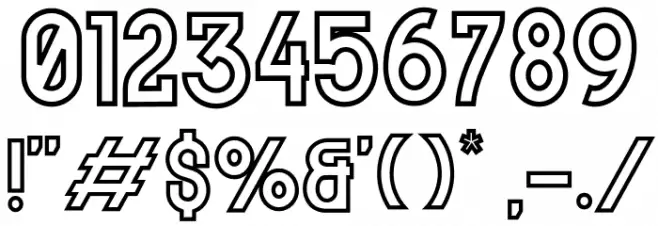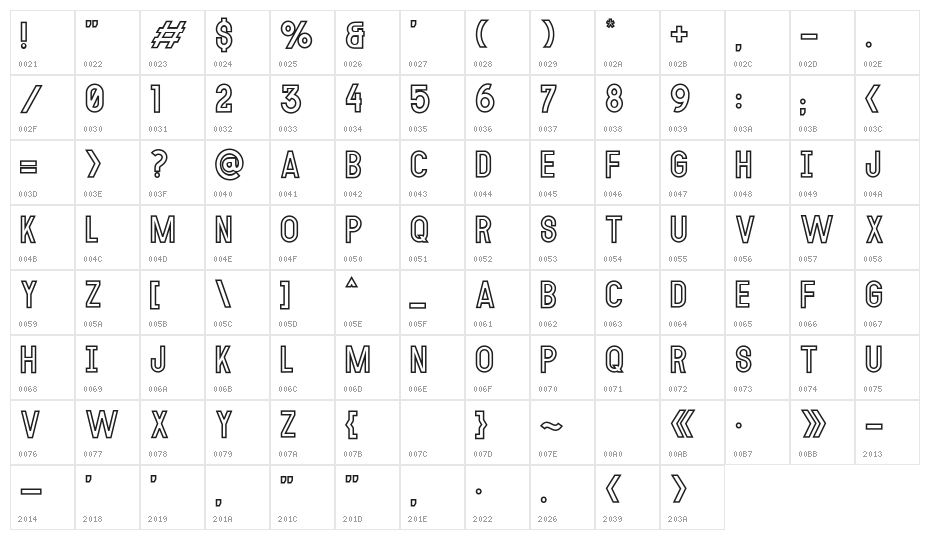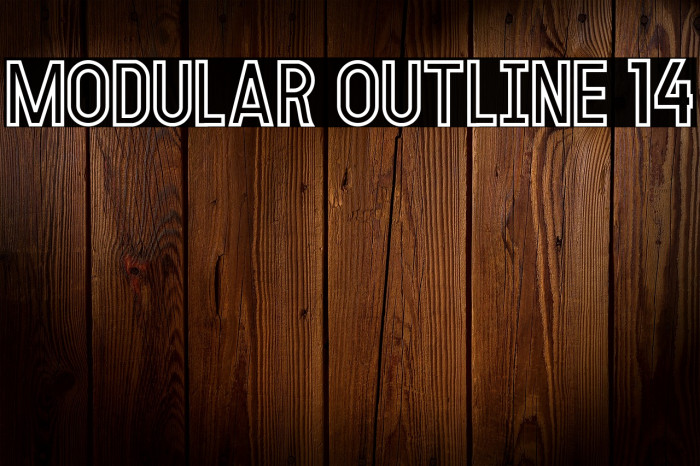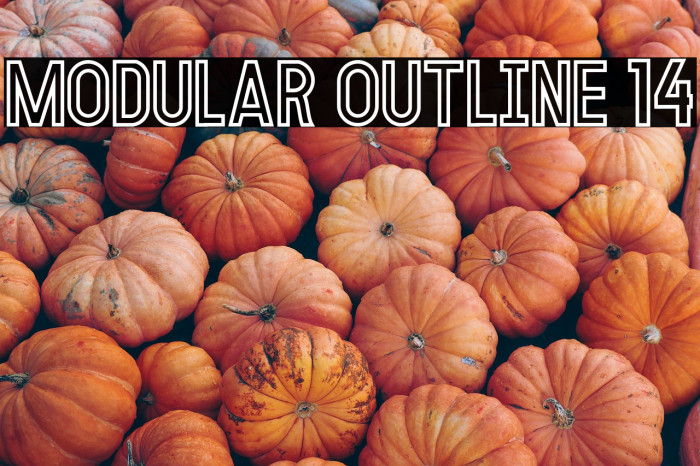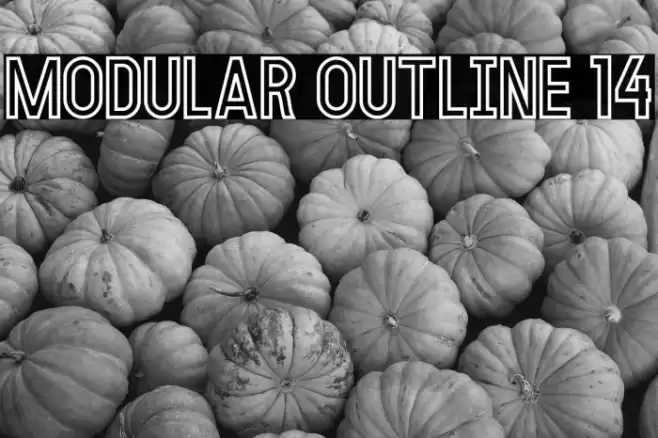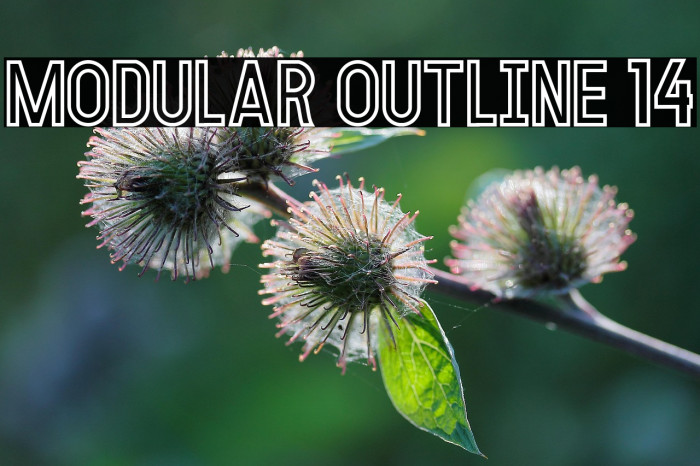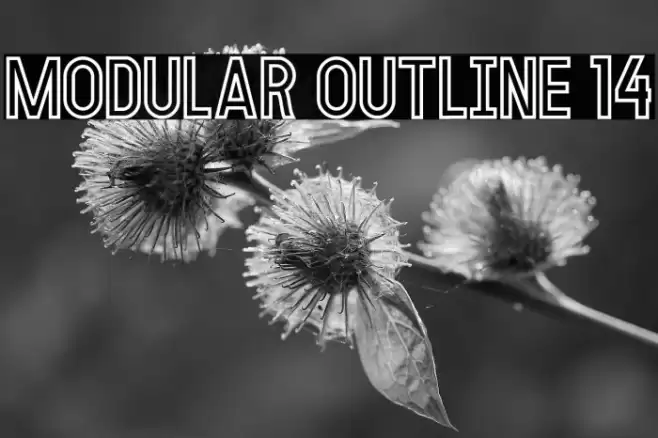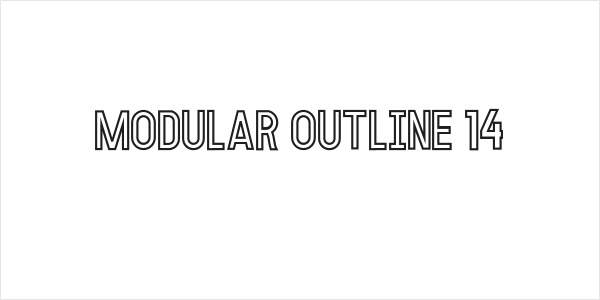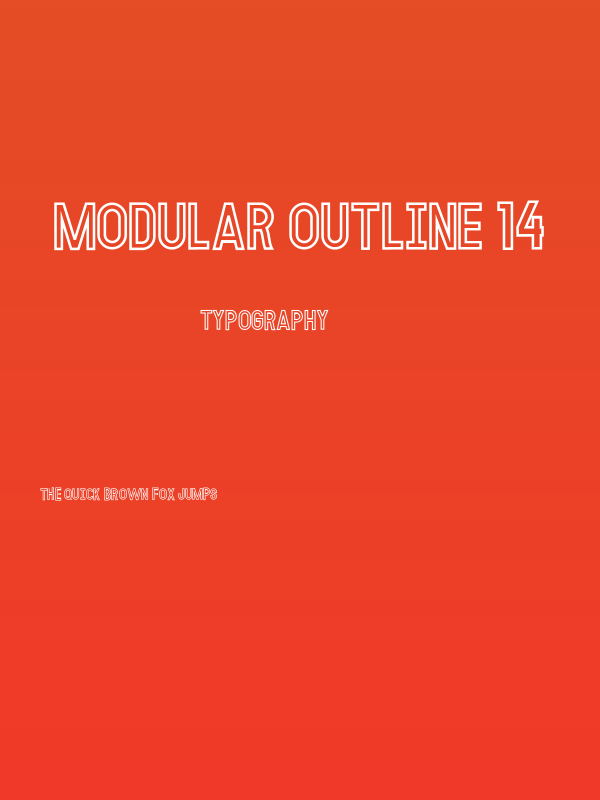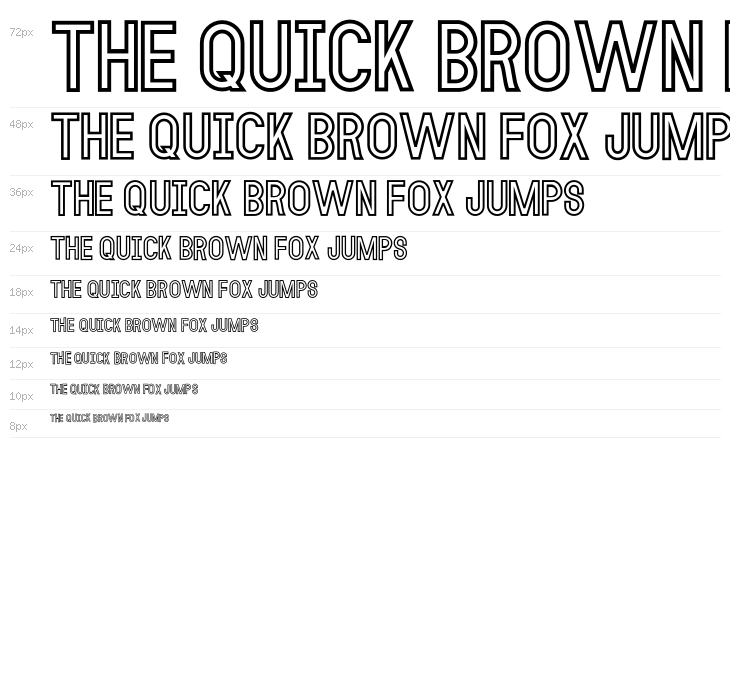
MODULAR Outline 14 Font
MODULAR Outline 14 Description
This font features a bold, geometric outline style that emphasizes clarity and modernity. The uppercase letters are uniformly designed with sharp angles and consistent line thickness, creating a sense of balance and precision. The numbers and special characters maintain this geometric consistency, making them easily legible and visually appealing. The font's outline nature gives it a unique, eye-catching appearance, suitable for various design applications where a strong visual impact is desired.
| Proposed Projects | Ideal for headlines, posters, logos, and branding materials that require a striking and modern look. |